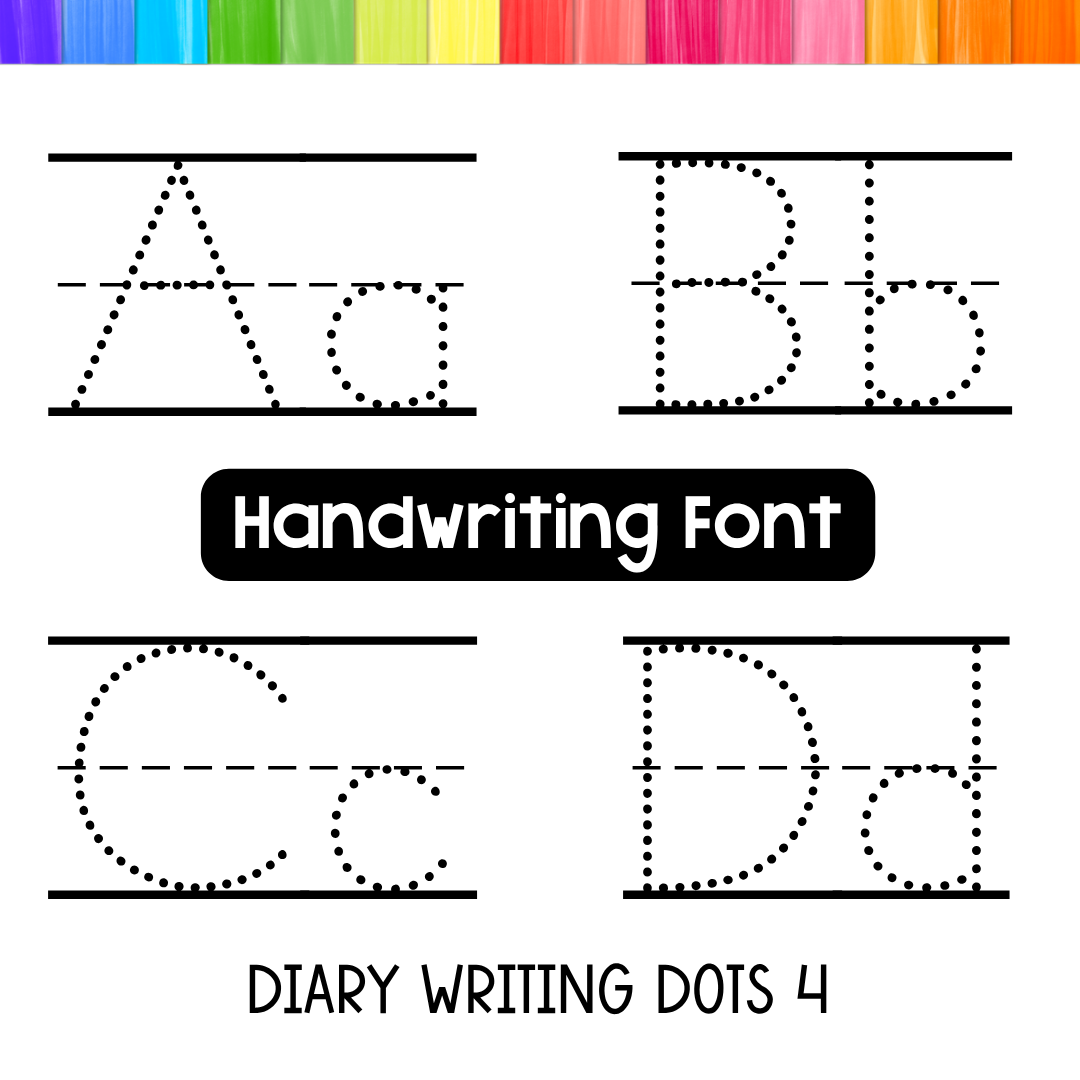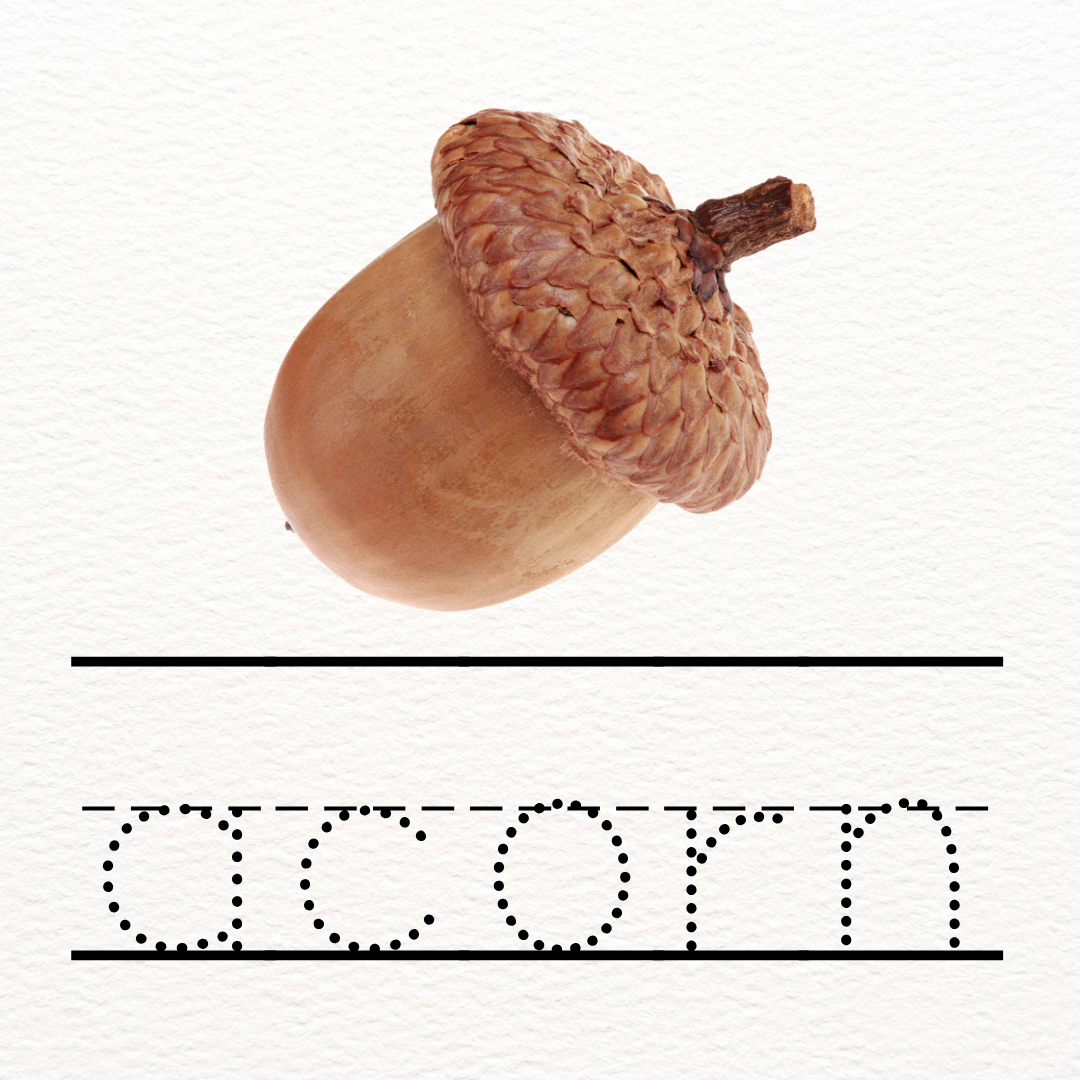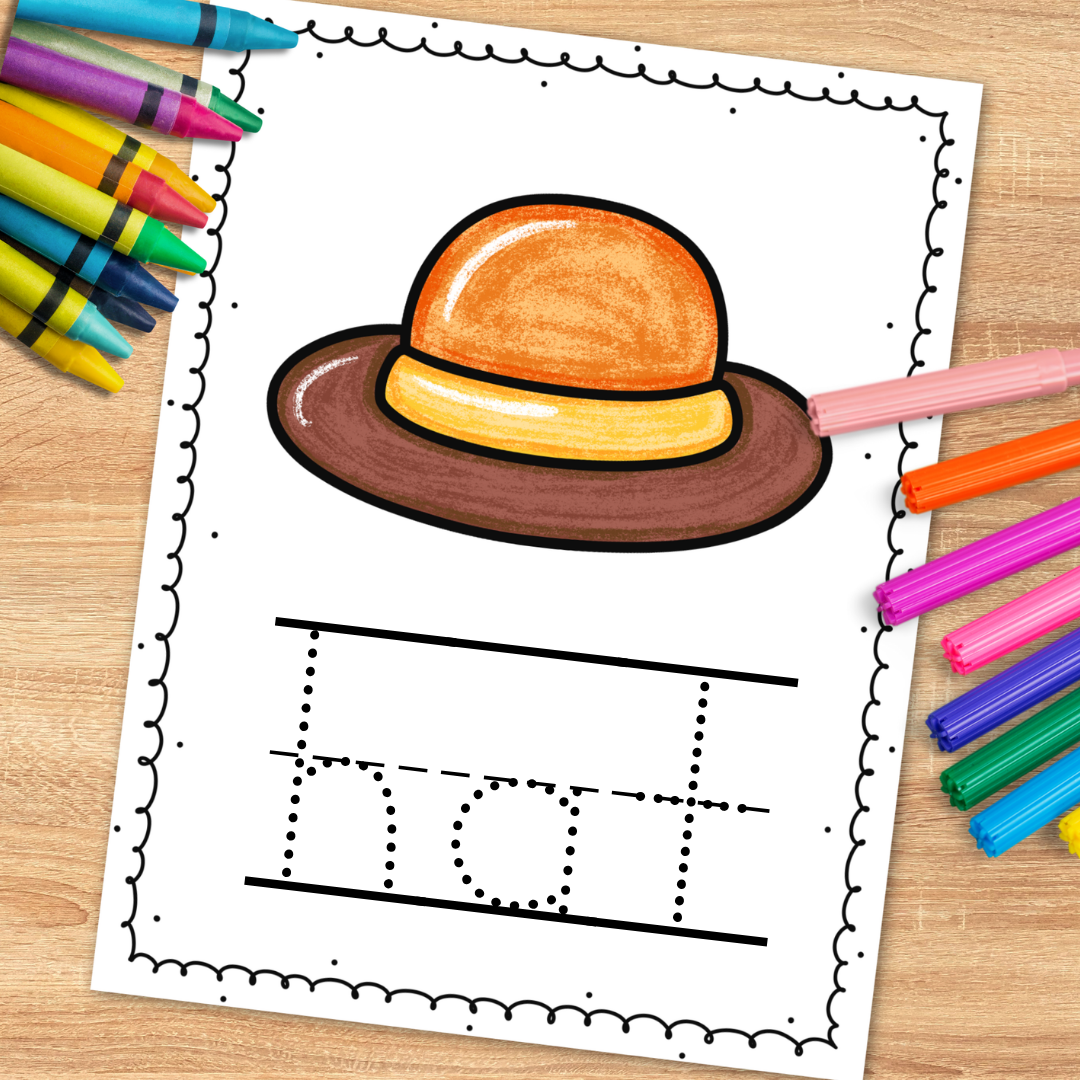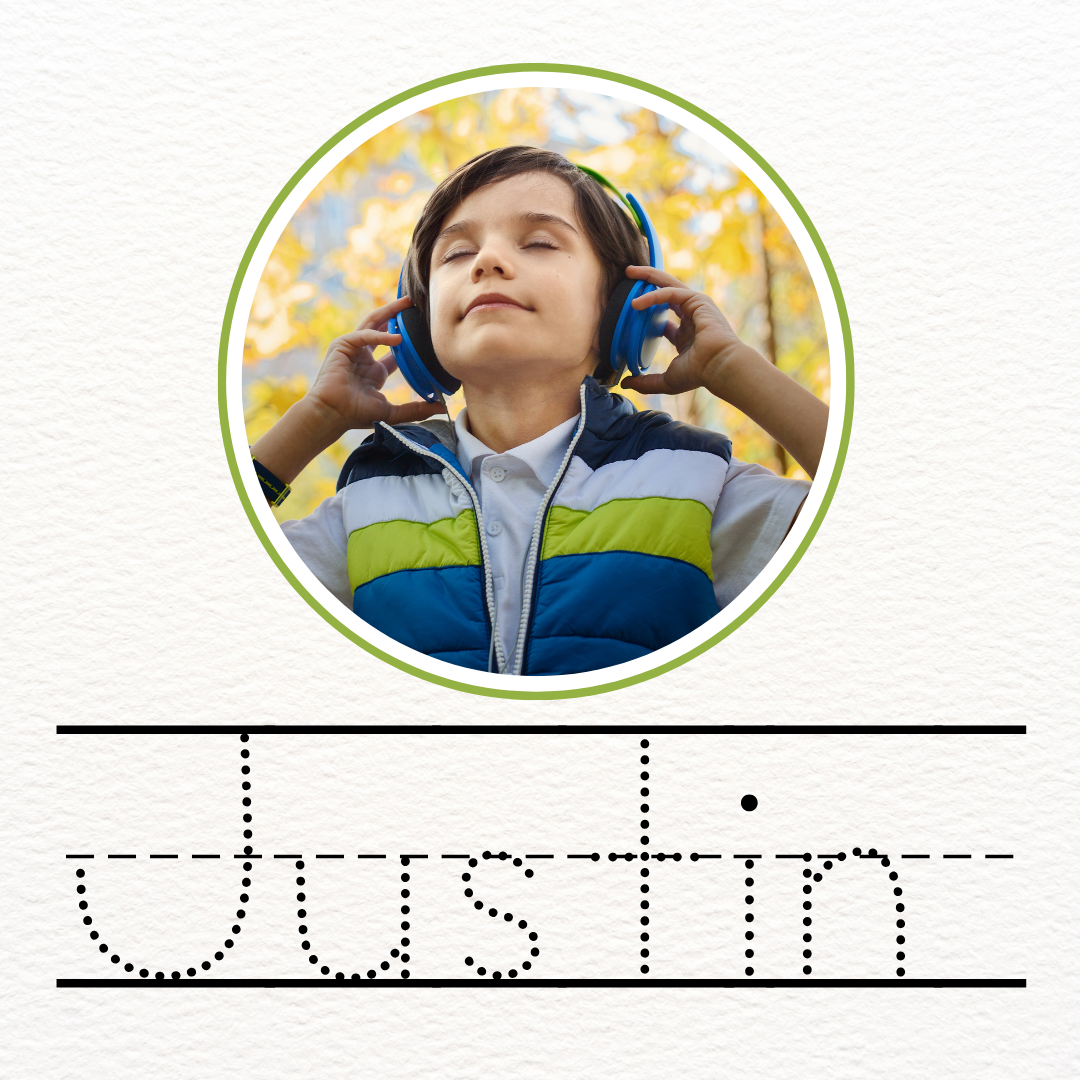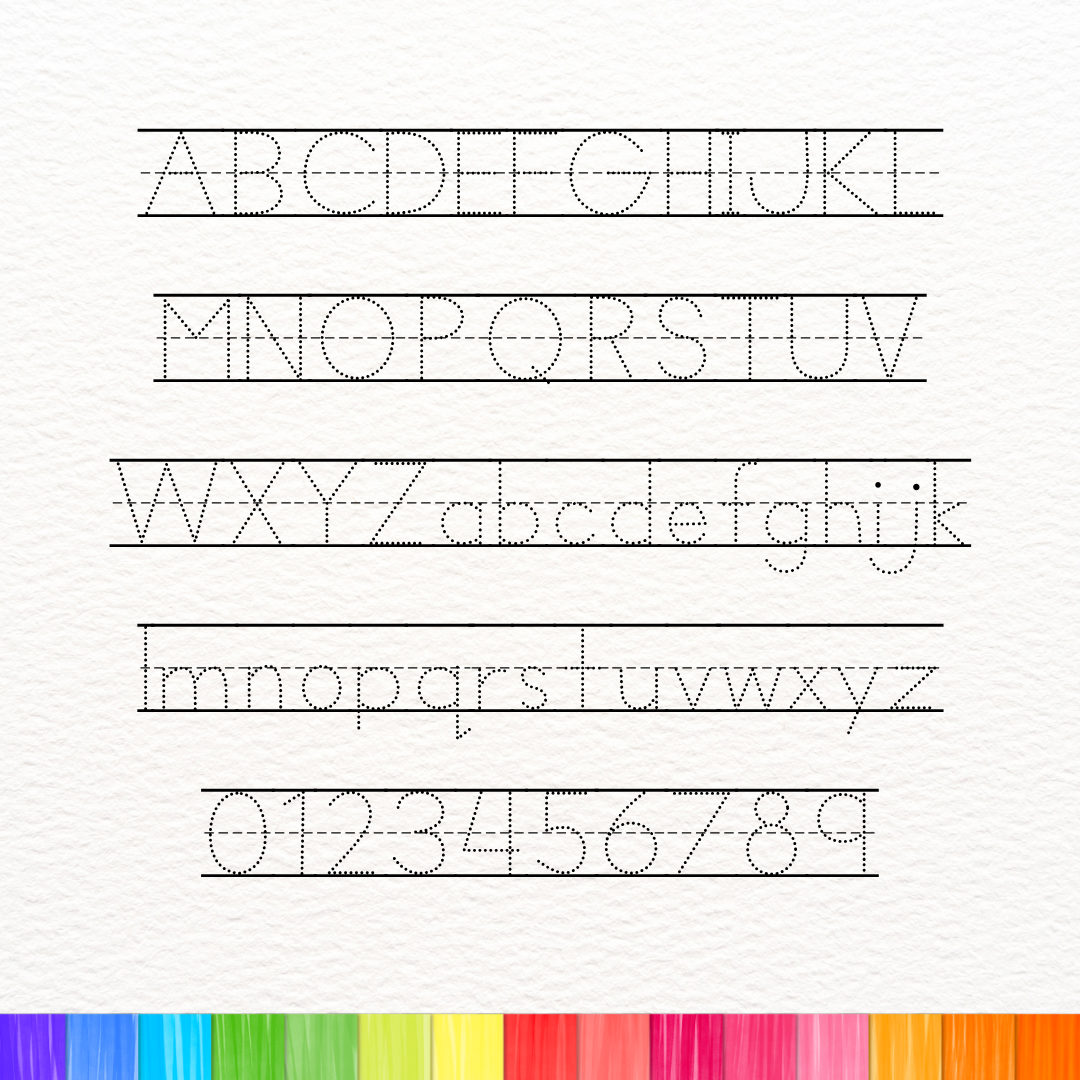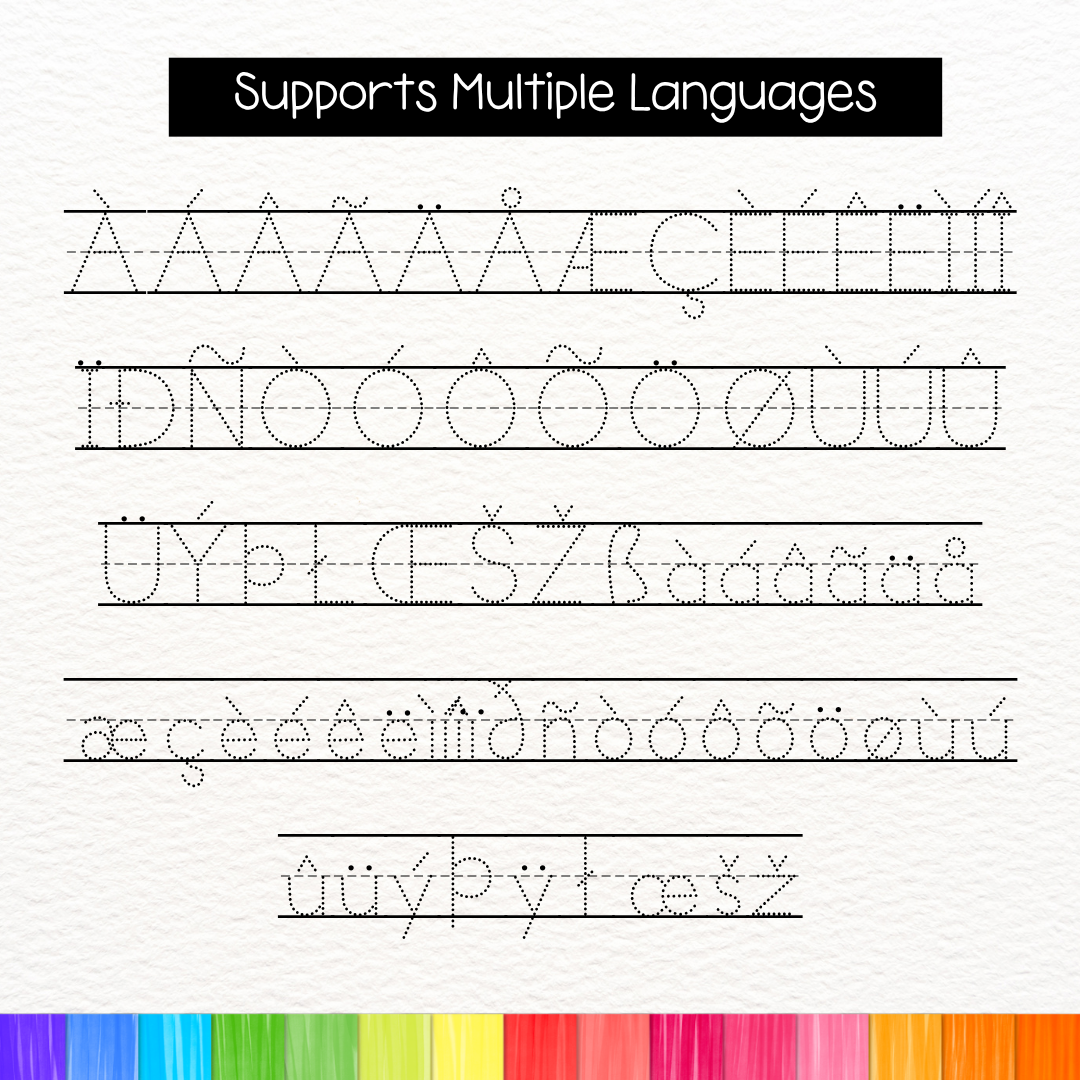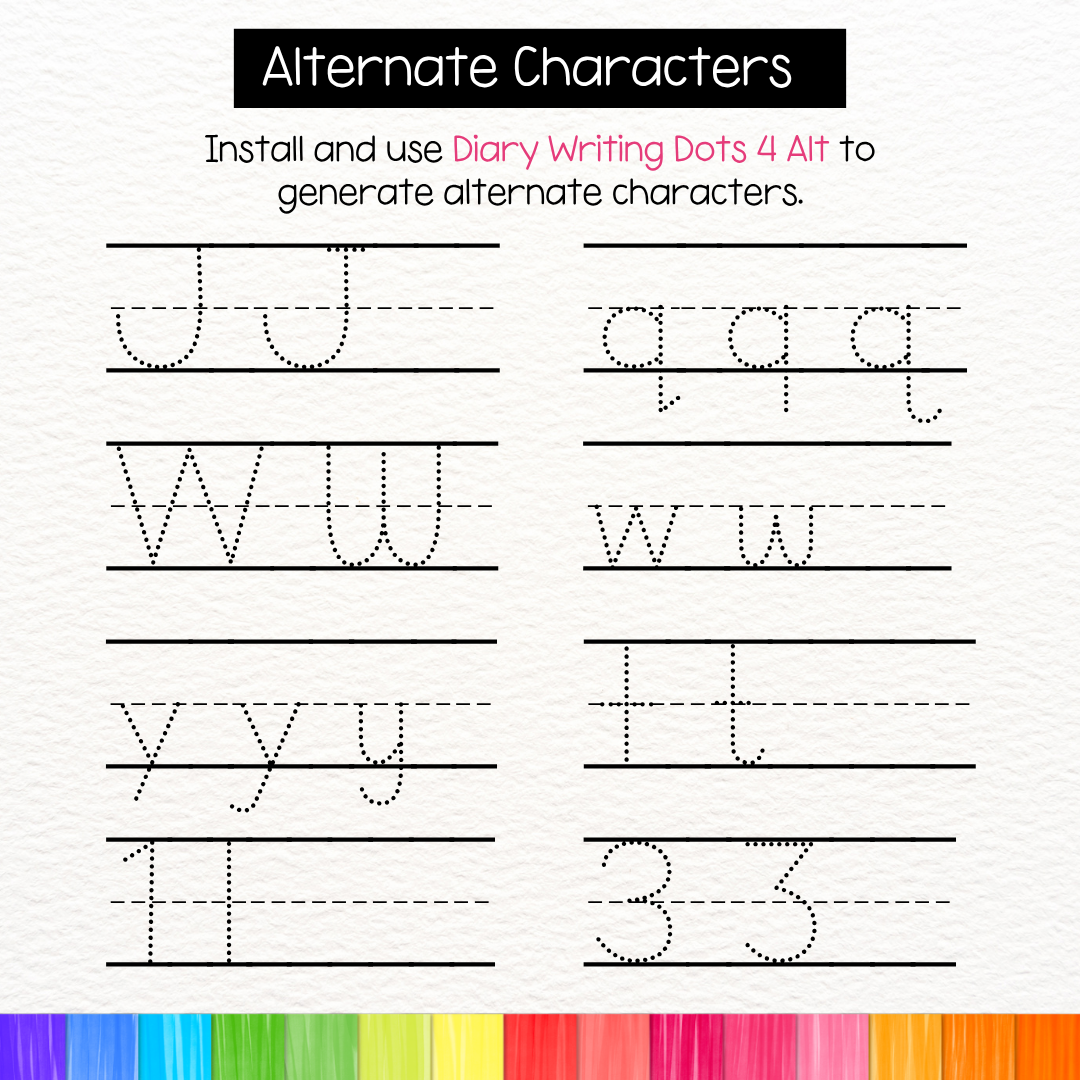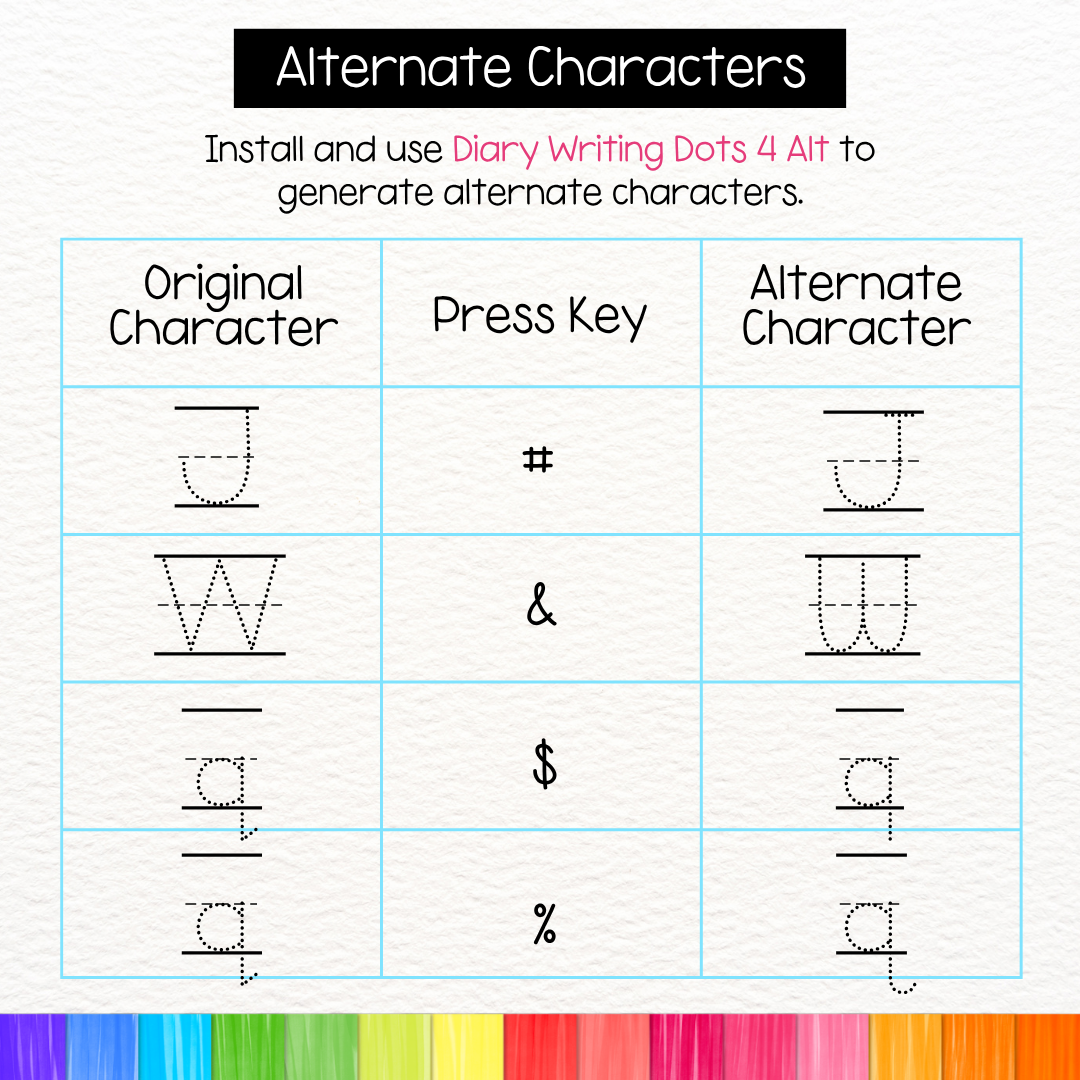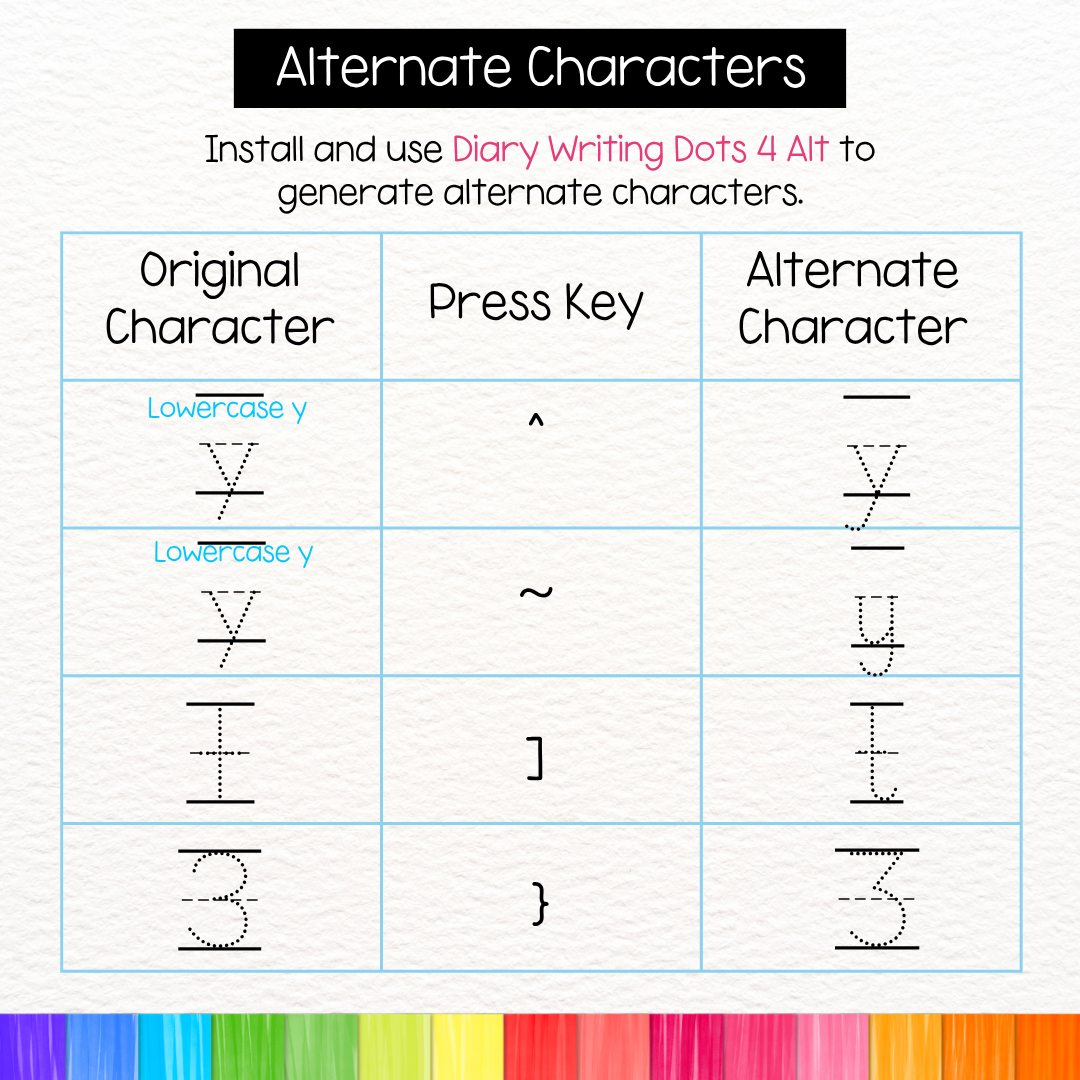
Lined Dotted Tracing Font for Handwriting Practice – Diary Writing Dots 4
Download this lined dotted tracing font to create custom handwriting worksheets and tracing activities. This handwriting practice font supports all capital letters, small letters, and numbers best for toddler tracing, name tracing, letter recognition letter tracing, and number tracing exercises worksheets.
Lined and Dotted ABC Alphabet Tracing Font for Handwriting Practice
This font has dotted letters in line guides, which are perfect for tracing and fine motor activities. This set includes all capital letters, small letters, and numbers best for toddler tracing, name tracing, letter recognition letter tracing, and number tracing exercises worksheets.
Create fun and engaging activities for kids to trace letters with this neat handwriting font!